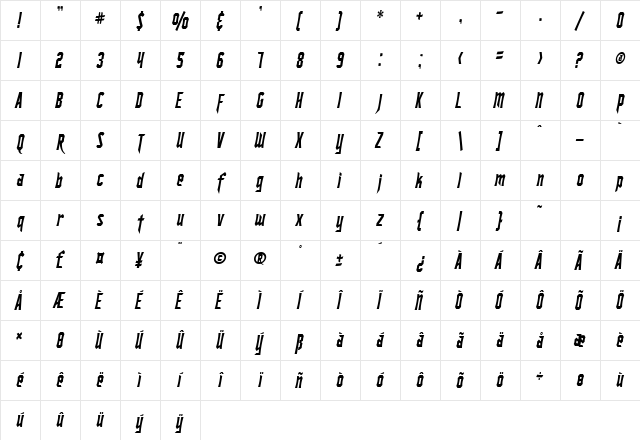
SF Ironsides Condensed Italic Free Font
SF Ironsides Condensed Italic
Design Context for SF Ironsides Condensed
SF Ironsides Condensed is a composed and adaptable typeface that performs quietly and consistently across a wide range of design contexts. The slanted form adds forward momentum and visual energy. Its narrow stance lets it pack a punch even in space-constrained designs.
Pro Tip: Use SF Ironsides Condensed for emphasis, pull quotes, and subheadings where its slanted energy can add rhythm to the layout.